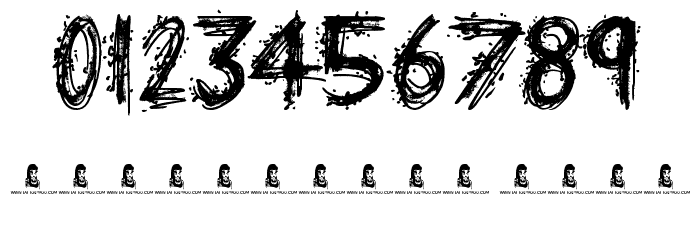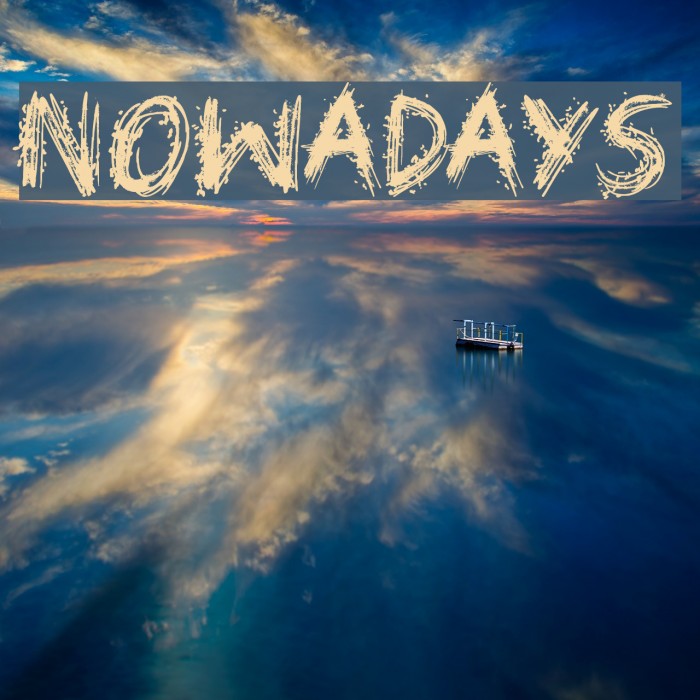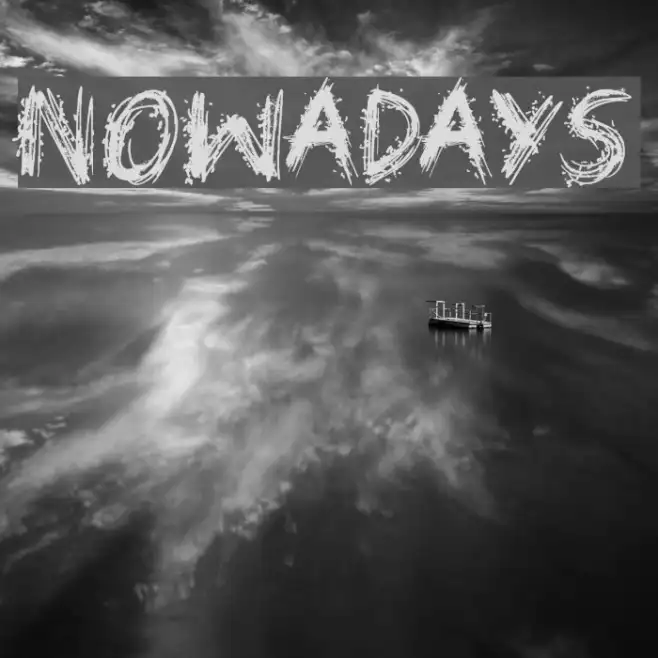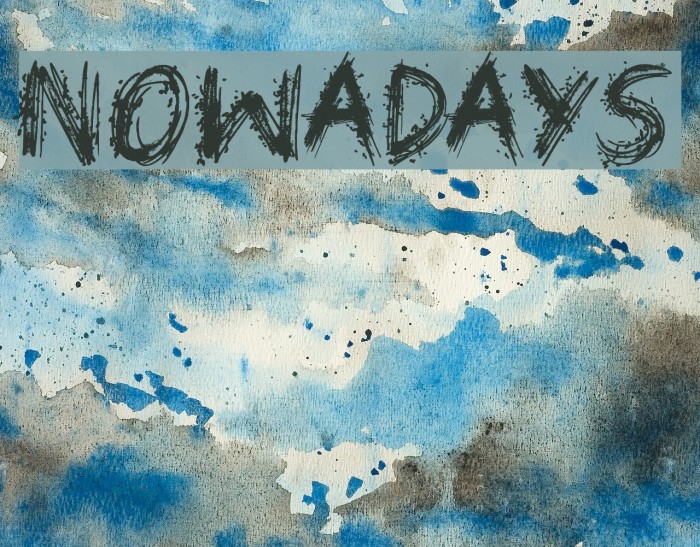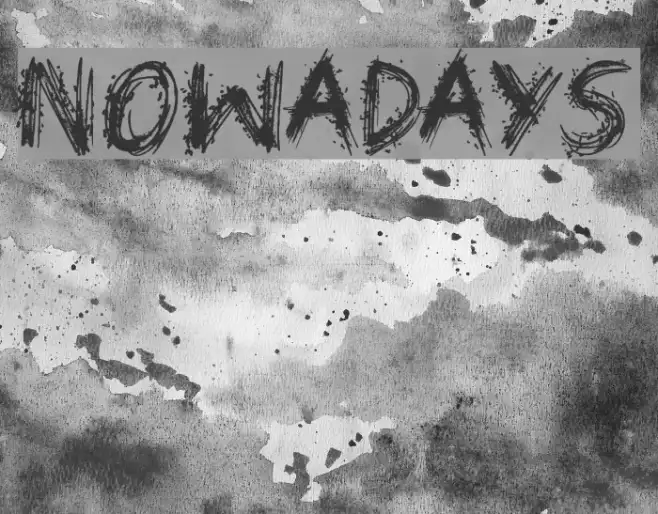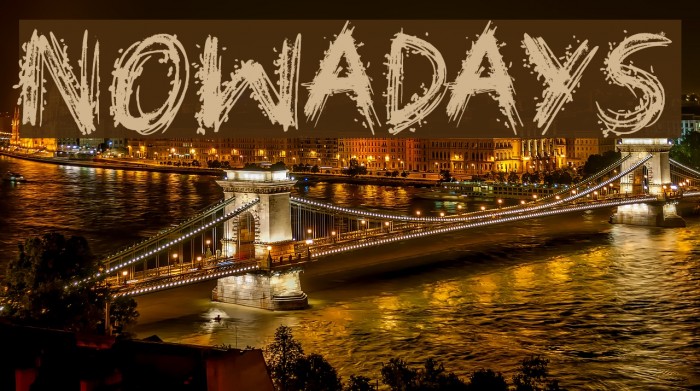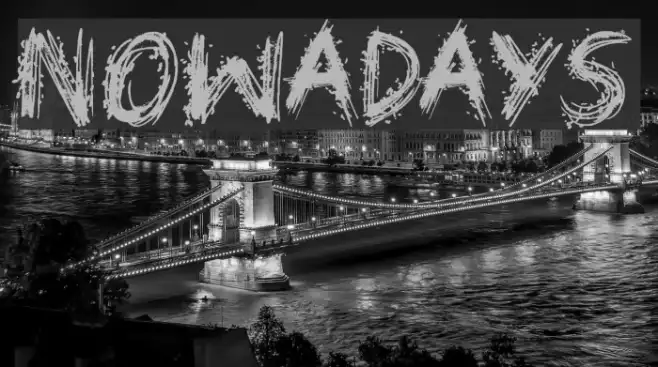
Nowadays Font
This font features a bold and expressive style, characterized by its rough, hand-drawn appearance. The letters are irregular and have a distressed texture, giving them a dynamic and edgy look. The strokes are thick and uneven, creating a sense of movement and energy. This font is ideal for projects that require a grunge or urban aesthetic, as it conveys a sense of rebellion and creativity. The uppercase and lowercase letters maintain a consistent style, with numbers and special characters following the same design principles. Overall, this font stands out with its unique and artistic flair.
A bold, hand-drawn font with a rough, distressed texture and dynamic style.
• Proposed Projects: Album covers, streetwear branding, graffiti art, posters, and event flyers.
• Category: Decorative/Display
• Overall Style: Urban, Grunge, Artistic
• Use Case: Logos, Headlines, Posters